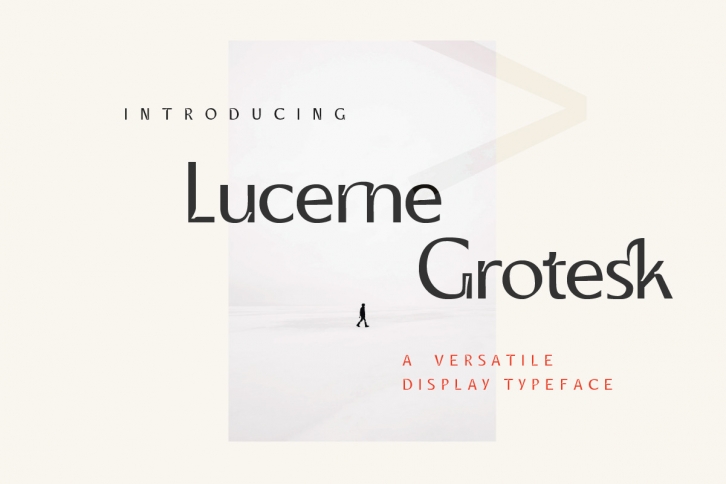
Lucerne Grotesk is a versatile and bold display font, featuring a classic flair & visual ink-traps.
It fits perfectly in modern and minimalist design applications, whether you want to create a unique brand or to make your print stand out.Â